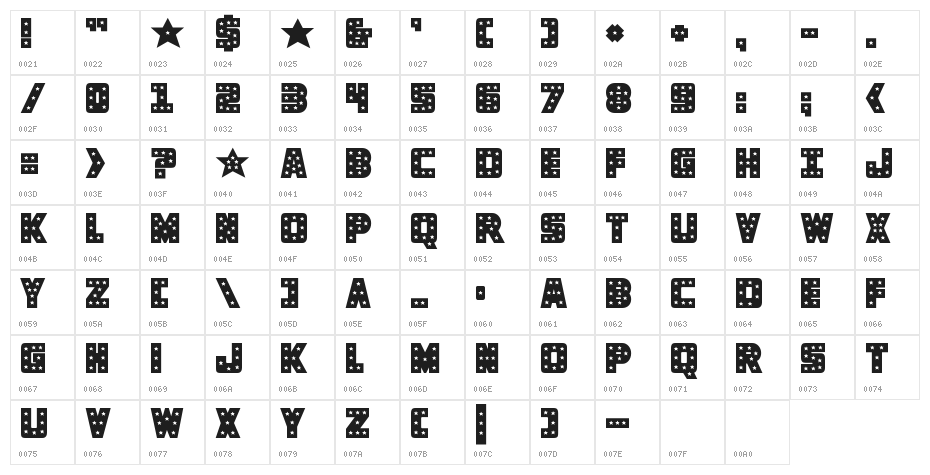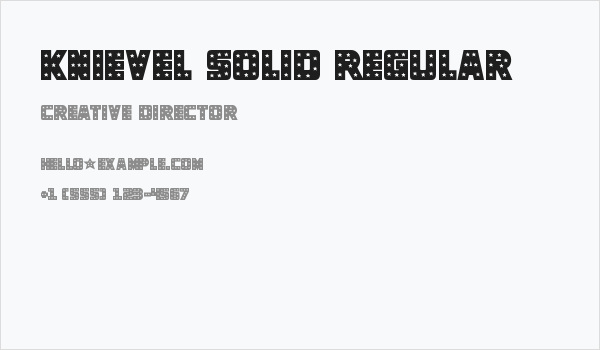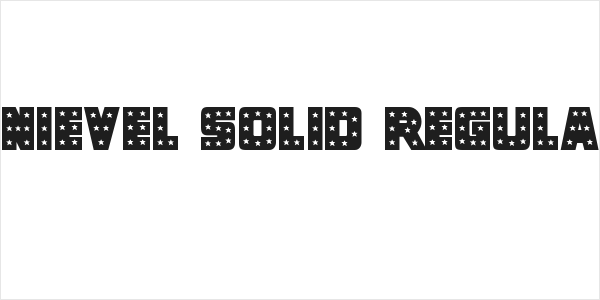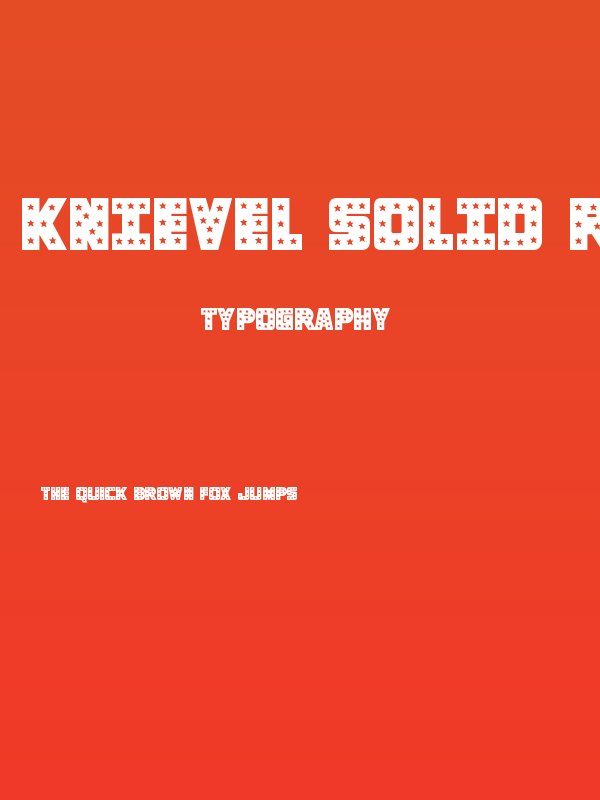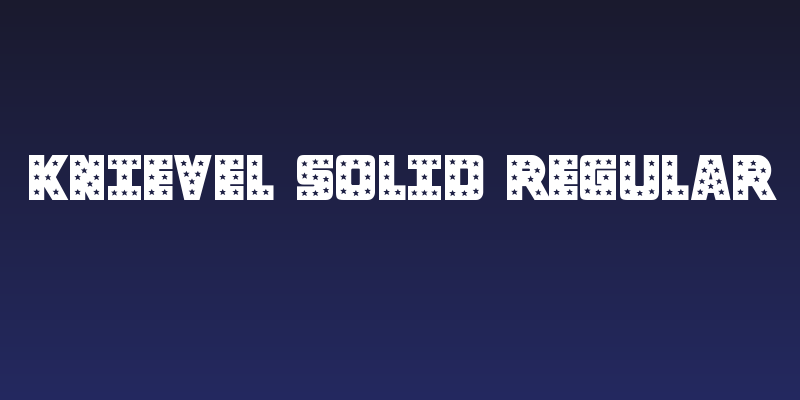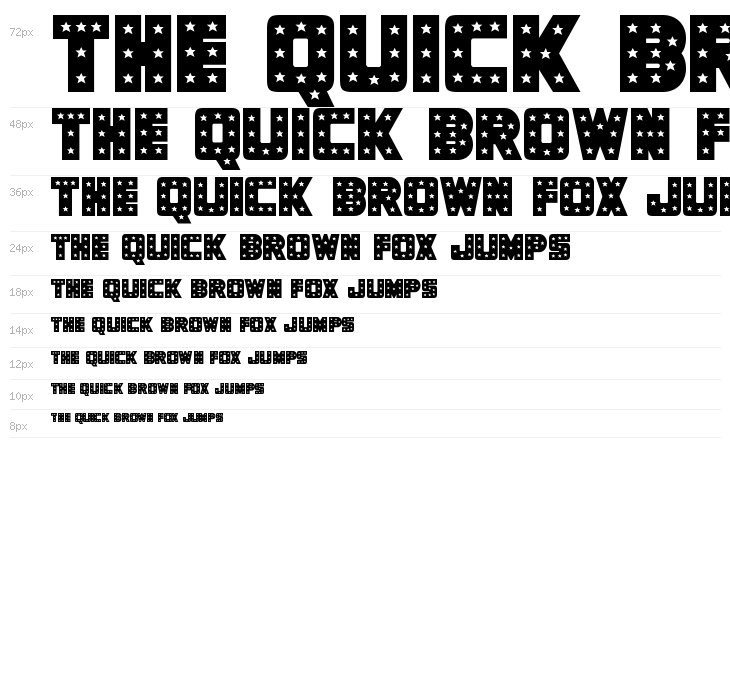
Knievel Solid Regular Font
Knievel Solid Regular Description
This bold and eye-catching font features a unique design with star patterns embedded within each character, creating a dynamic and playful appearance. The letters are blocky and robust, making them highly visible and ideal for attention-grabbing designs. The font's decorative nature is enhanced by the consistent star motif, which adds a touch of whimsy and fun. Its solid structure ensures readability while maintaining a distinctive style that stands out in any setting. Perfect for projects that require a bold statement, this font combines creativity with functionality.
| Proposed Projects | Perfect for posters, event flyers, children's book covers, and themed party invitations. |